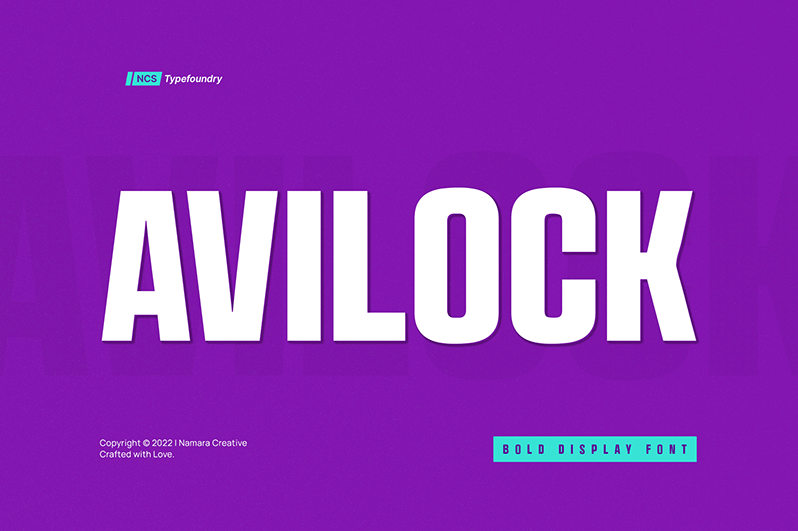
Font name: | Avilock |
Author: | Namara Creative Studio |
Note by Namara Creative Studio | |
Avilock is powerful bold display font Perfect for typography purposes that require a strong but subtle identity. NOTE : - This font is PERSONAL USE ONLY, NO COMMERCIAL USED ALLOWED. - Link to purchase Full Version and Commercial license : https://onedsgn.com/product/avilock/ |